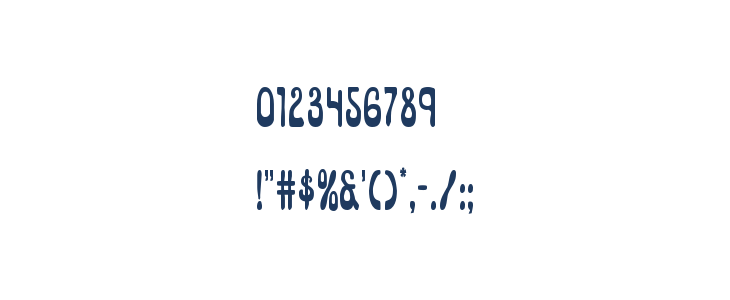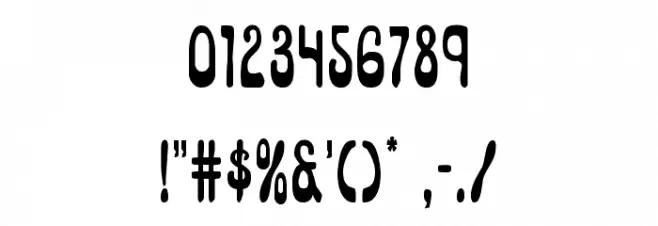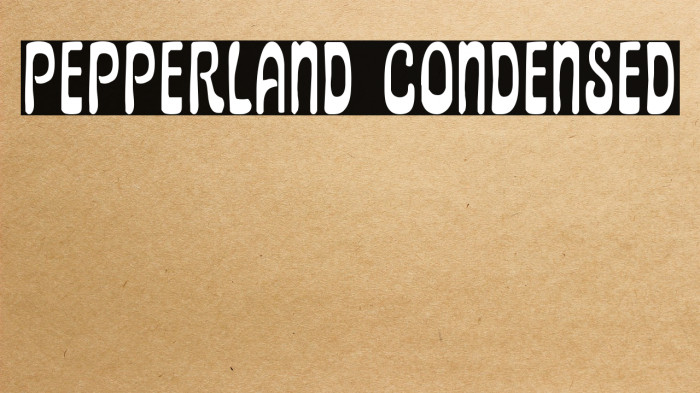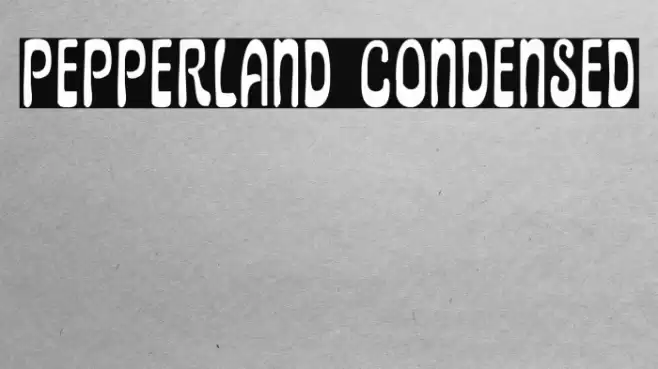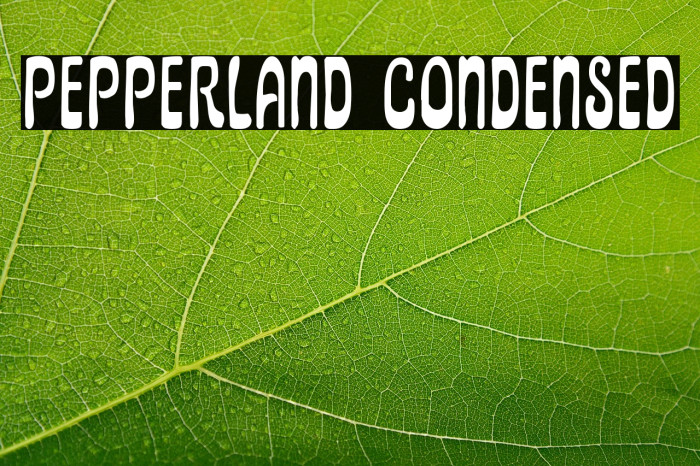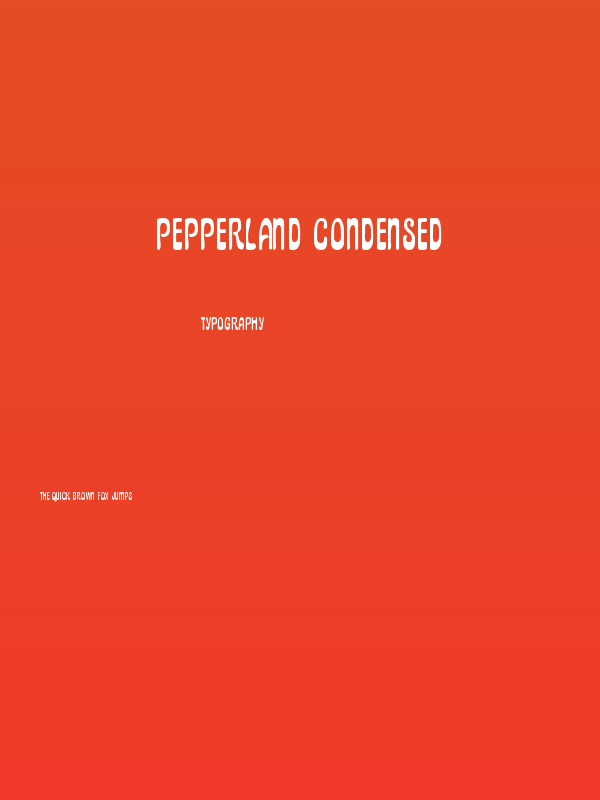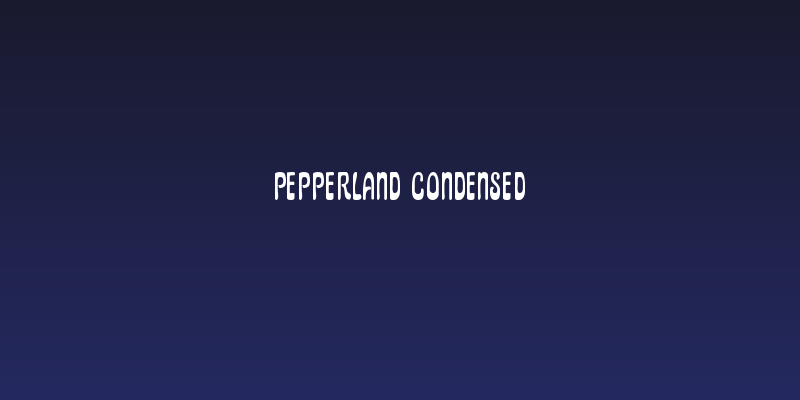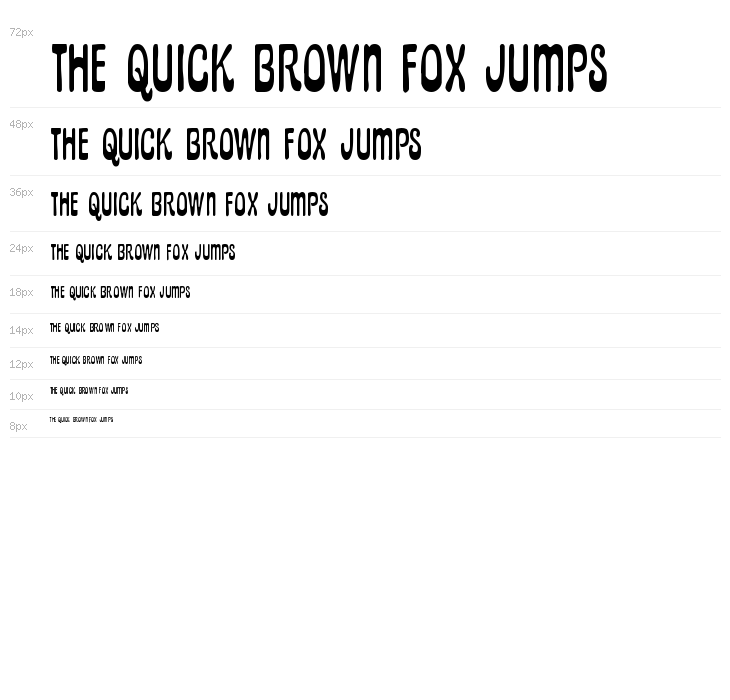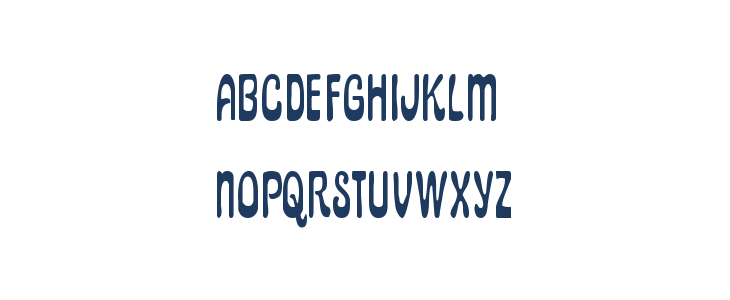
Pepperland Condensed Font
Pepperland Condensed Description
This font features a playful and whimsical design with condensed letterforms. The characters exhibit a unique blend of rounded and slightly elongated shapes, giving them a distinct personality. The uppercase and lowercase letters maintain a consistent style, with smooth curves and a moderate stroke width. Numbers and special characters are designed to match the overall aesthetic, ensuring a cohesive look across all text elements. The font's condensed nature makes it suitable for space-saving applications while retaining readability.
Overall StylePlayful, Whimsical
Proposed ProjectsIdeal for children's books, playful branding, posters, and creative projects requiring a fun and distinctive typeface.